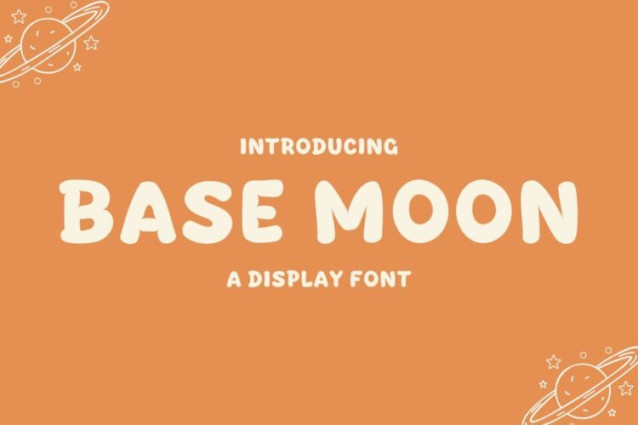
Base Moon Font
Base Moon Font is a chunky, comic, and cartoon display font. With its neat and joyful personality, this font will enhance any project you wish to create!